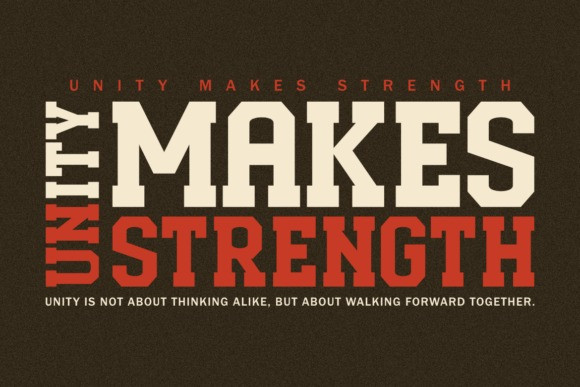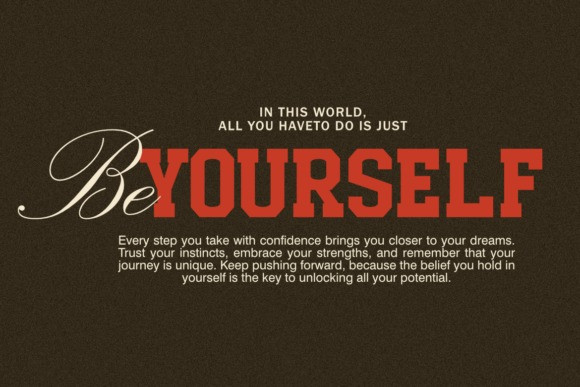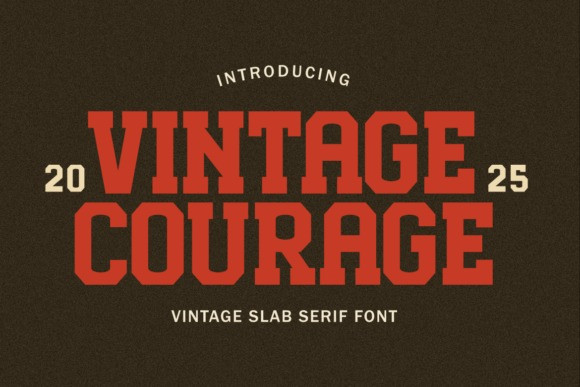
Vintage Courage Font
Vintage Courage Font is a vintage slab serif font with bold geometric shapes and strong serif details. Perfect for posters, branding, logos, packaging, and sports designs, this font brings a powerful and timeless look to your designs. Whether you are working on editorial layouts or merchandise projects, Vintage Courage will make your project stand out. Add it to your creative toolbox and enjoy a truly vintage slab serif vibe!